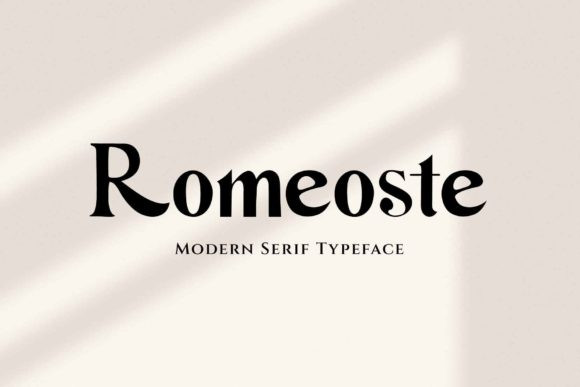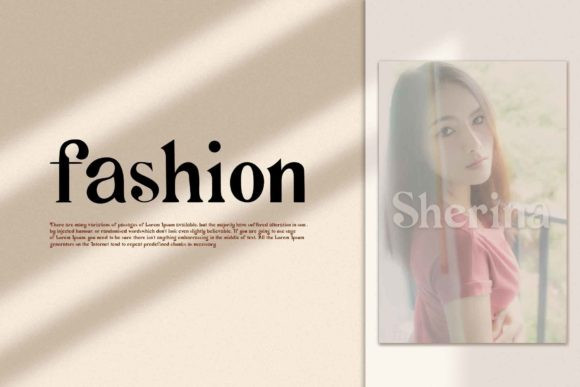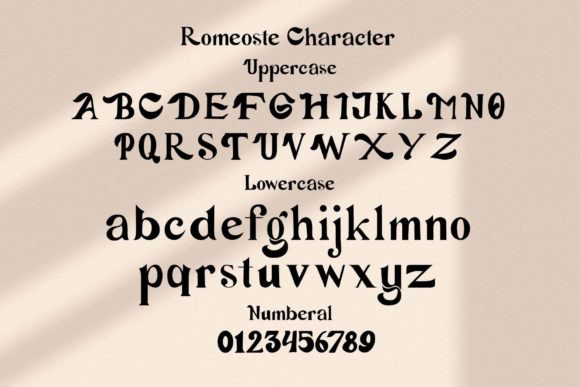
Romeoste Font
Romeoste is an elegant , trendy and versatile serif font. It can easily be added to a variety of design ideas, both formal and informal. This font was particularly crafted for those who need a beautiful and refreshing look to their designs.